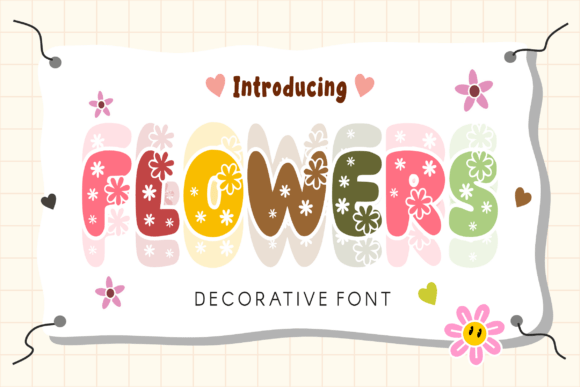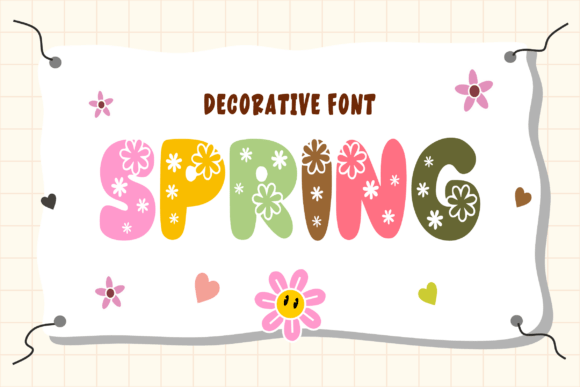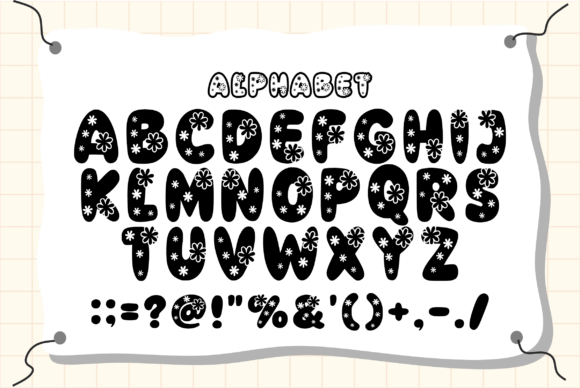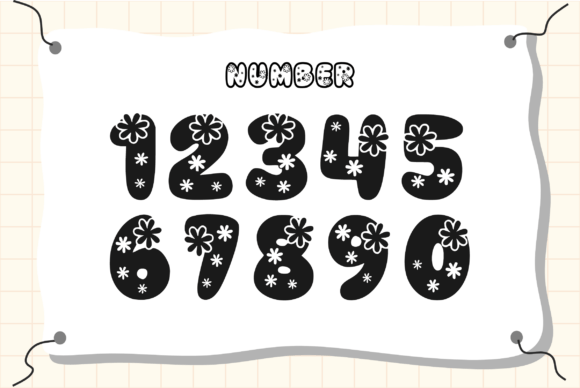
Flowers Font: A Cute Decorative Font for Spring Designs!
About the Flowers Font
Discover the charm of Flowers Font. This font is a perfect blend of modern aesthetics and classic appeal. Unveiling “Flowers”, a spring-inspired font that exudes beauty in every stroke. Its characters are endearingly constructed and are bursting with floral artistry. With its enchanting style, it becomes an ideal choice for crafting invitations, conceptualizing business cards, designing t-shirt prints, or enhancing various decorative endeavors. Flowers cements your creations with its petal-filled charm.
Flowers Font’s playful, yet elegant, personality makes it perfect for projects requiring a touch of whimsical sophistication. It shines in applications like branding for boutiques, invitations for special events, and packaging for artisanal products. However, its ornate details might prove less effective for body text or UI elements where readability is paramount.
Pairing Flowers with a clean sans-serif like Lato for body copy would create a balanced and harmonious design. For a more modern feel, consider pairing it with a geometric sans-serif such as Montserrat. Alternatively, a classic serif like Garamond could add a touch of timeless elegance.
The font’s delicate flourishes are best suited for projects that celebrate femininity and artistry, but avoid using it where a strong, authoritative message is needed.
Flowers Font Usage Examples
Flowers Font Example